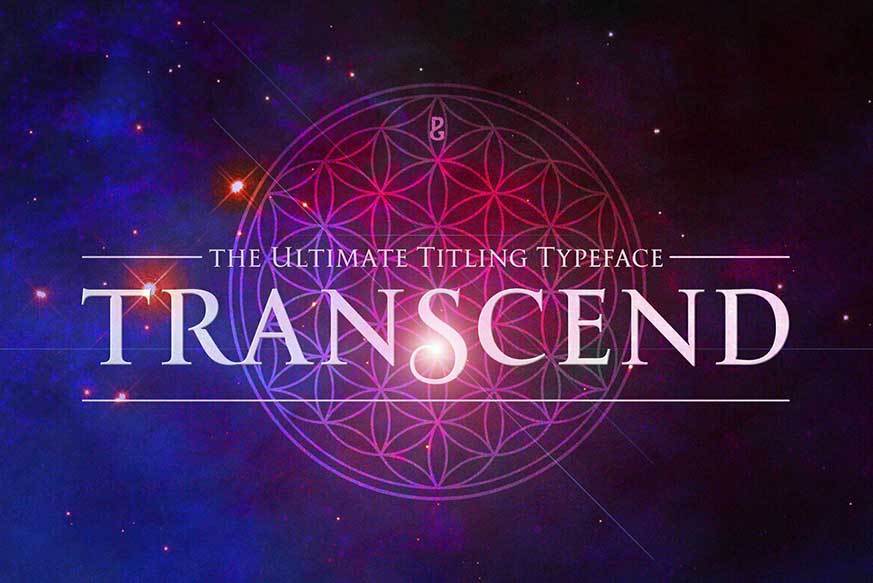
Transcend Font Family
Transcend has been designed specifically for titling and branding purposes. This 8-font, all caps typeface is packed with Open Type features including discretionary ligatures and alternates that when used subtly help you to create distinctive headline typography.
Transcend aims to be “The Ultimate Titling Typeface”.